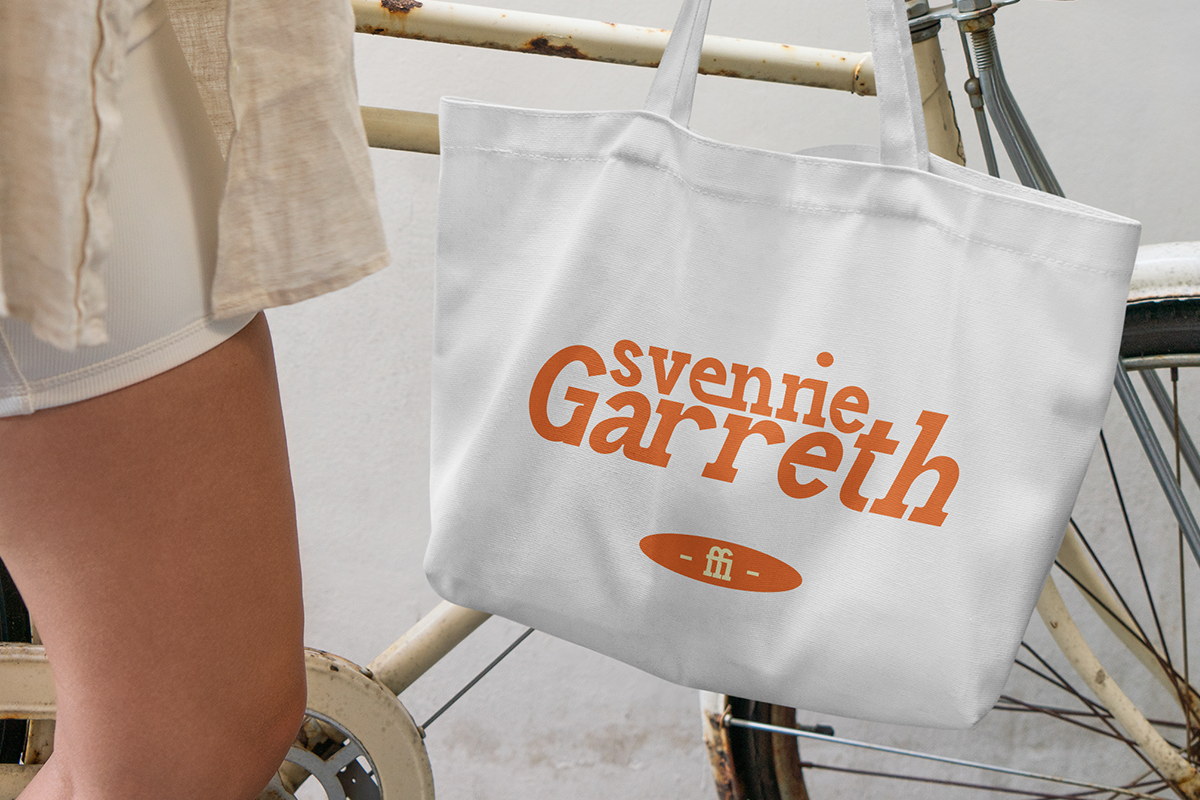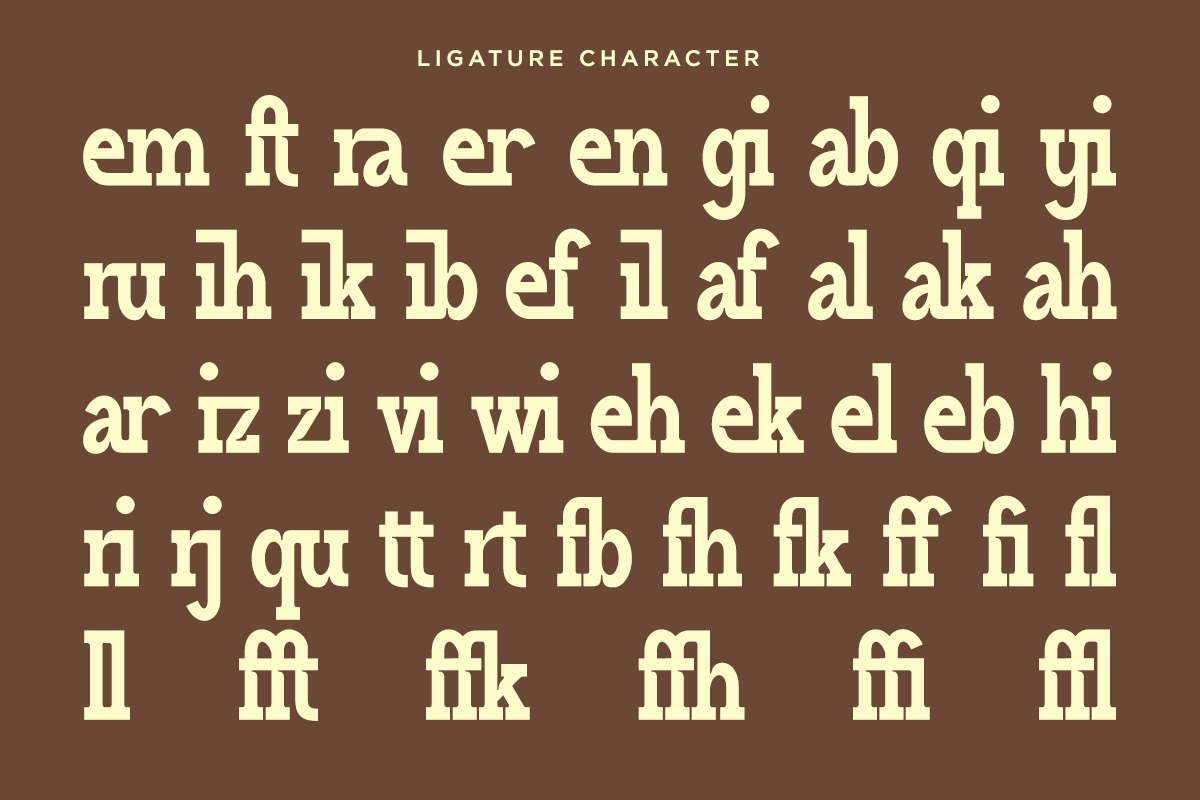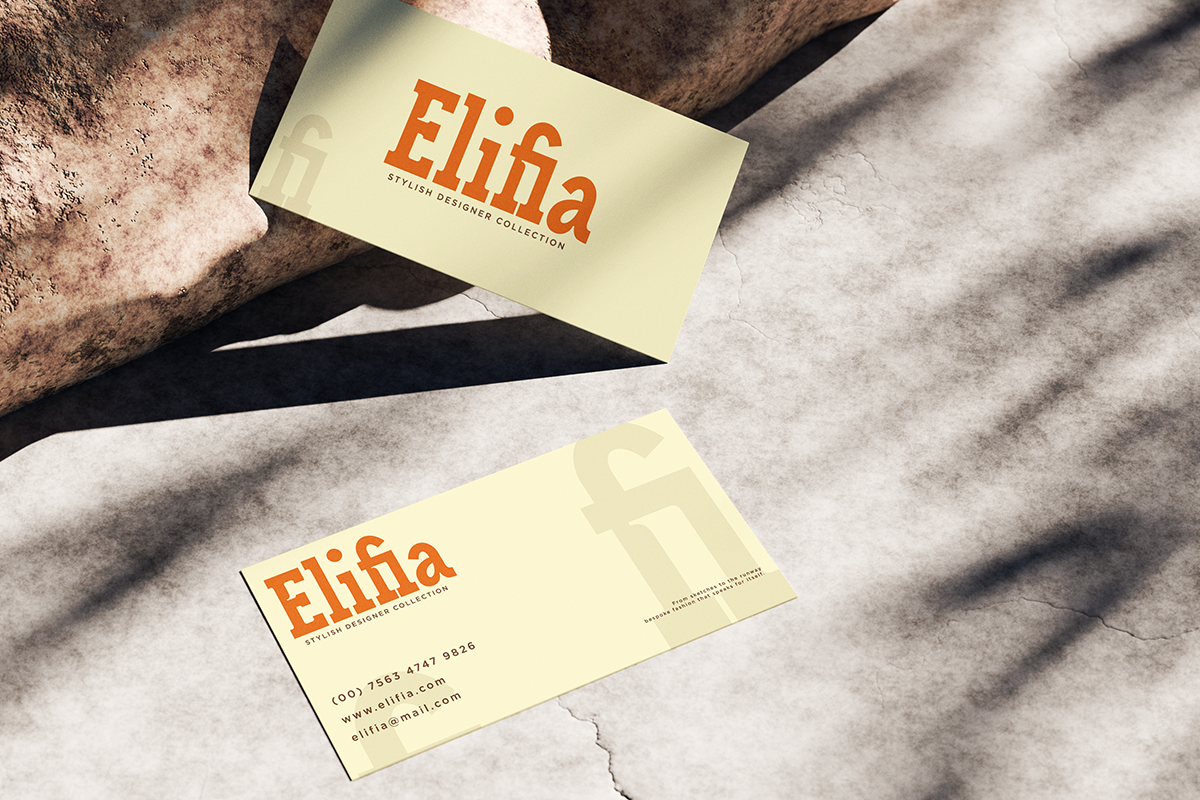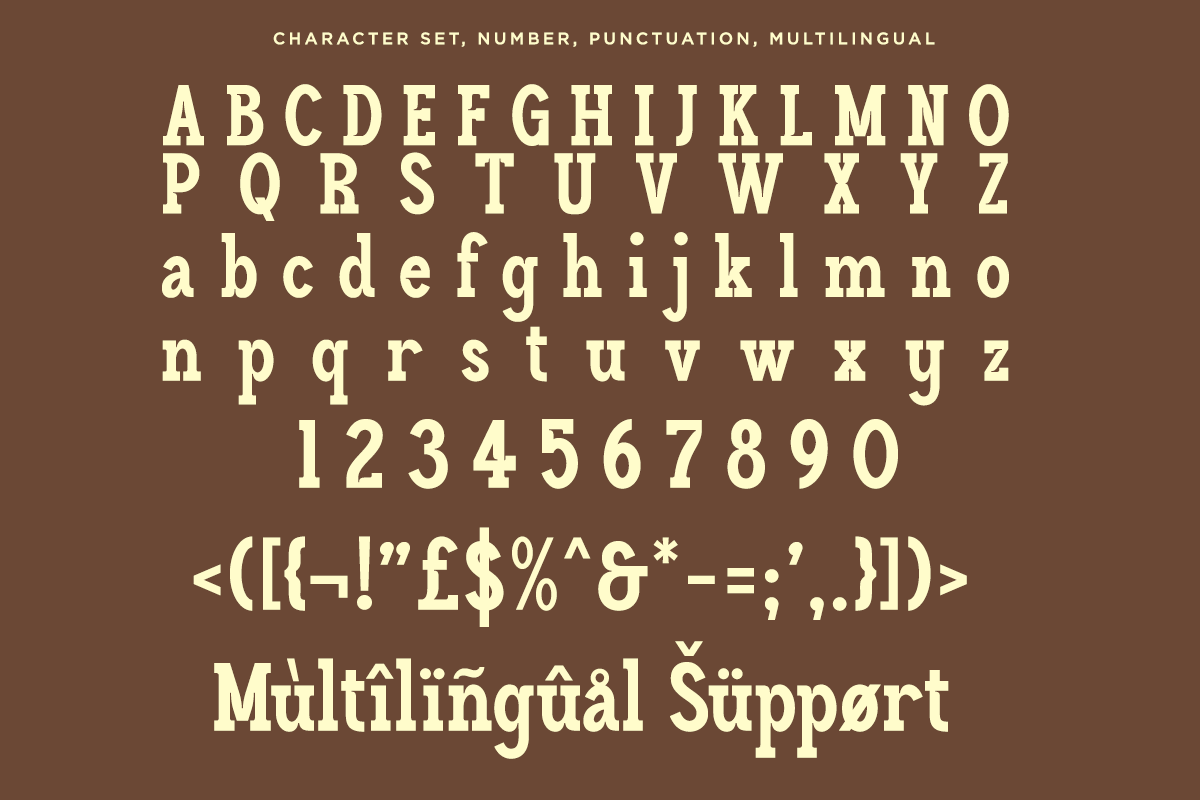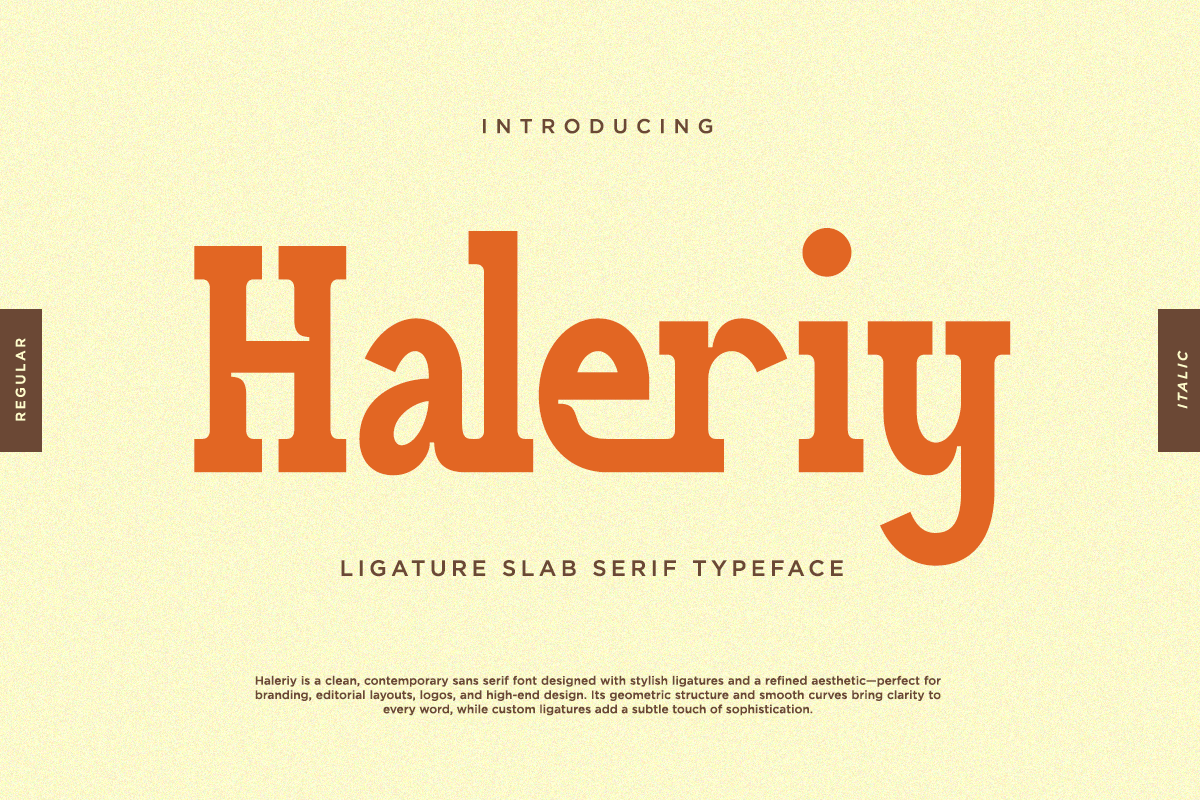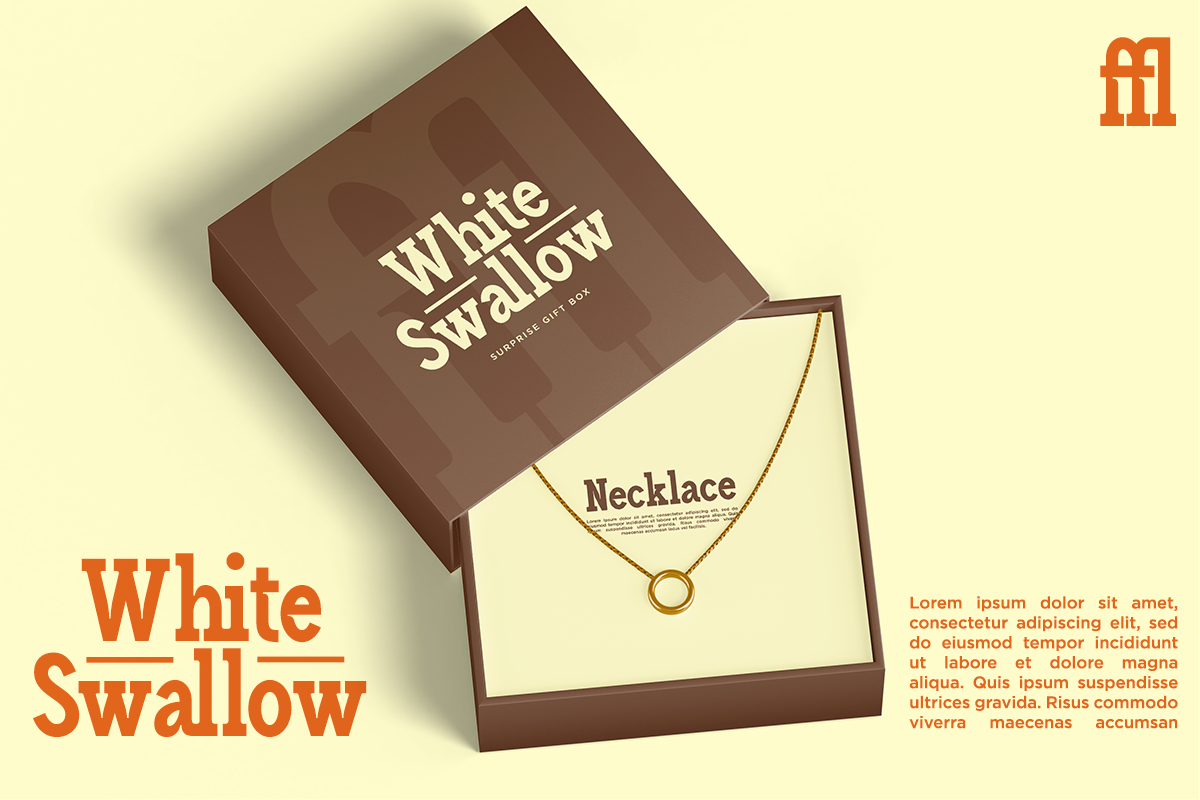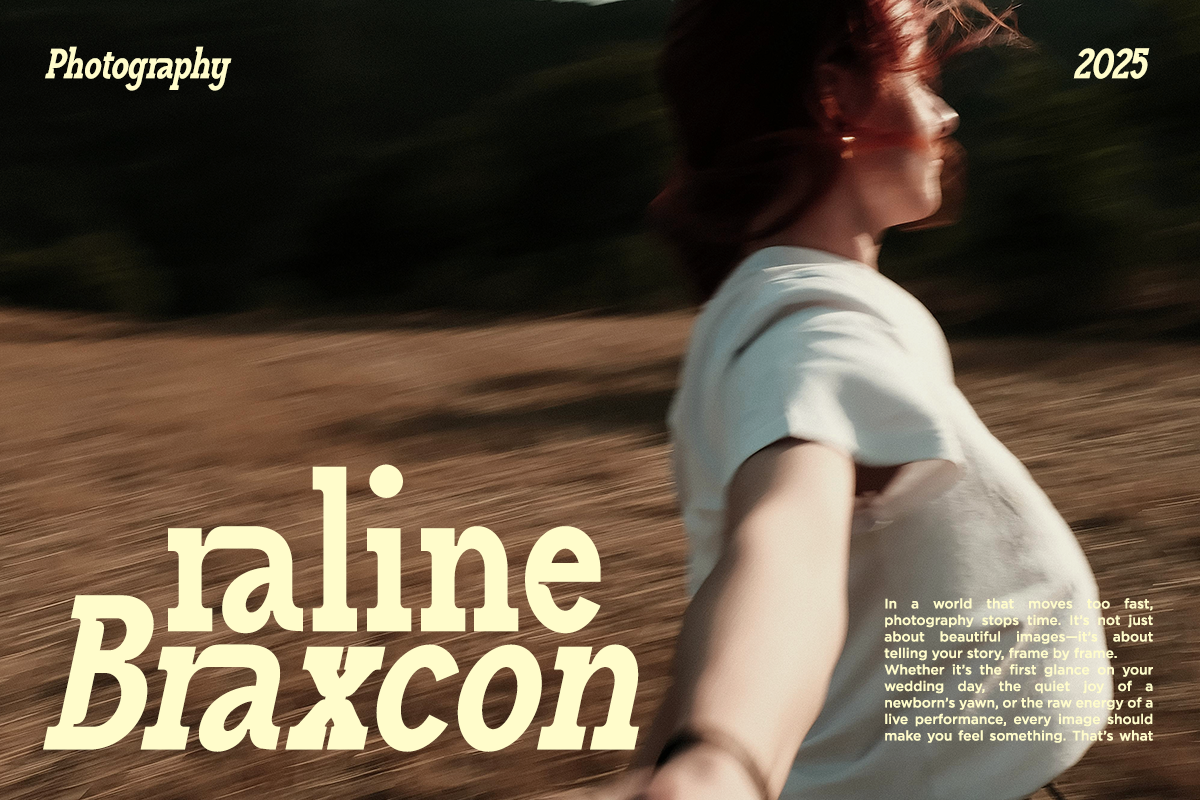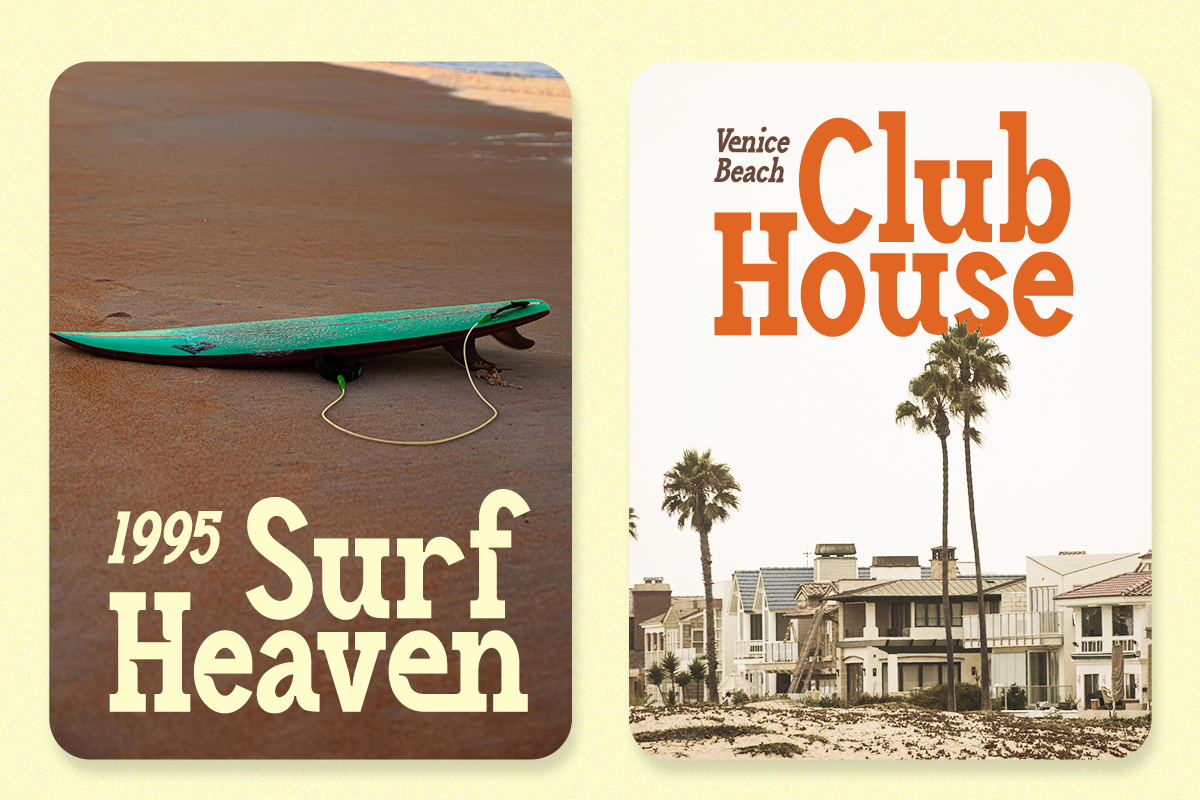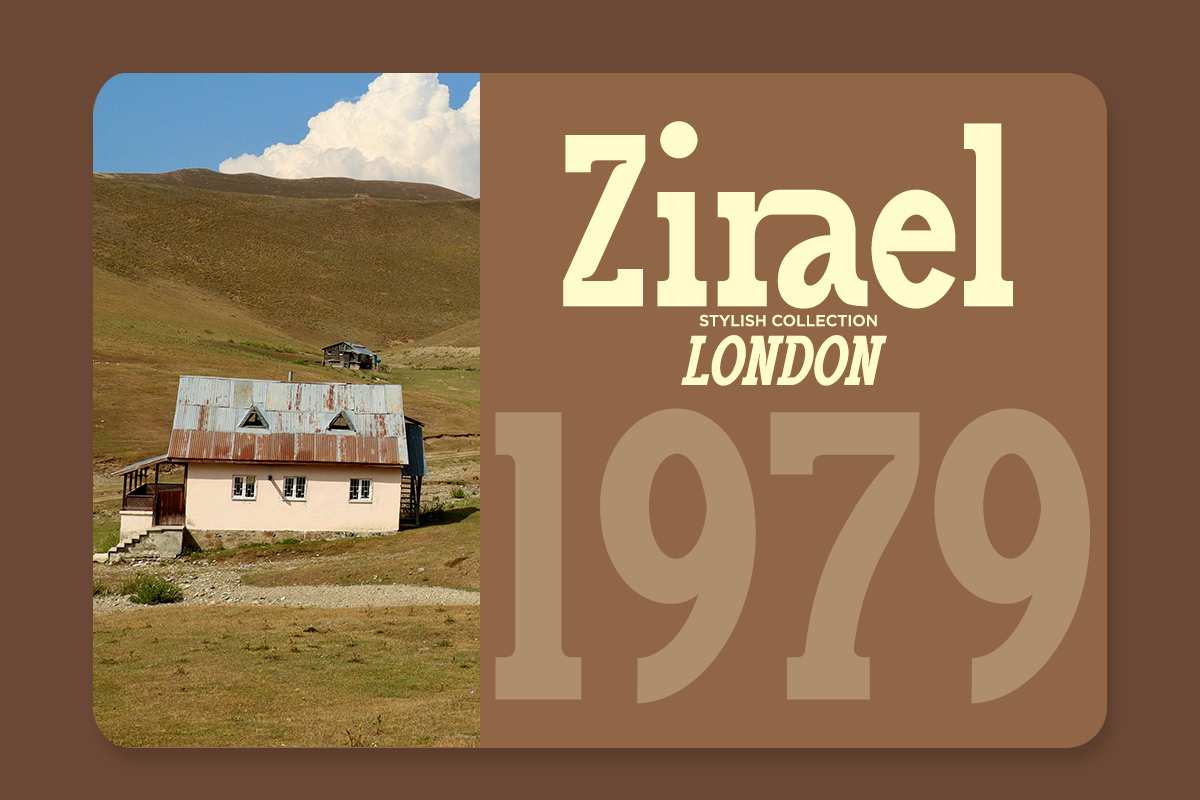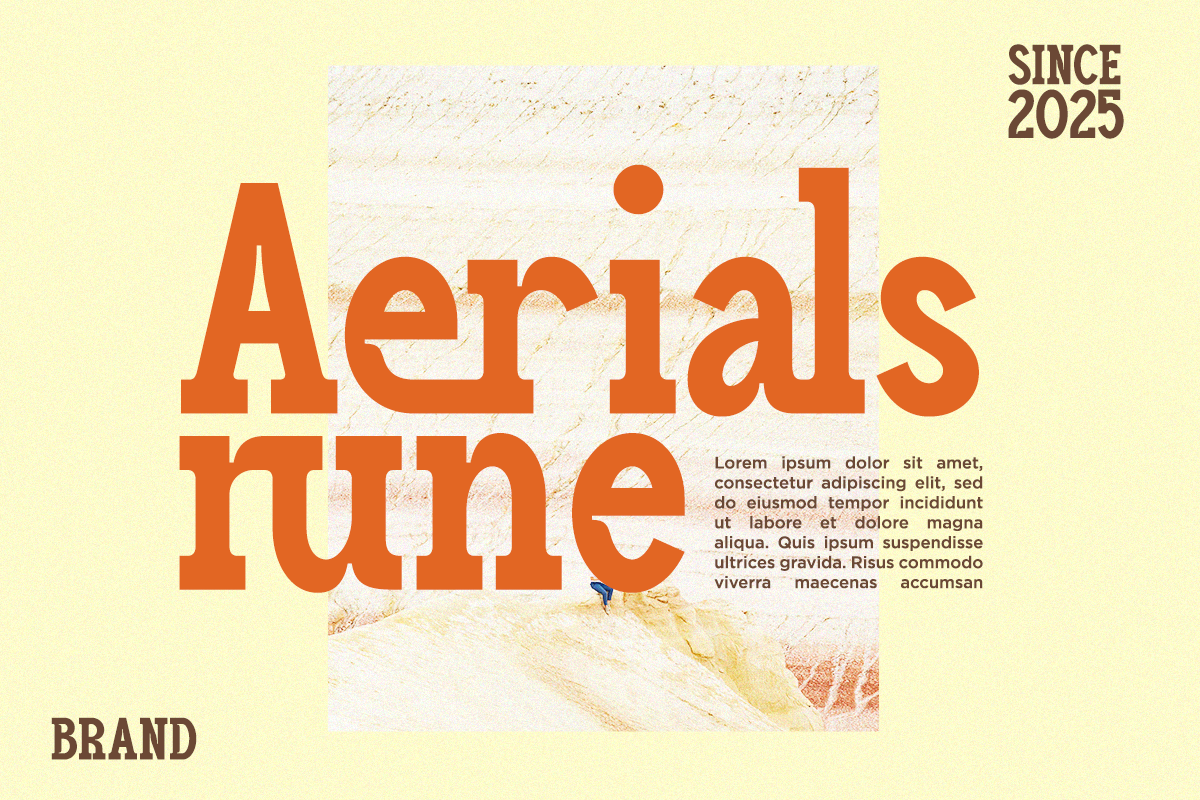
Haleriy - Ligature Slab Serif Font
Haleriy is a stylish slab serif font that blends vintage strength with inktrap style . Perfectly suited for headlines, branding, logos, packaging, and editorial layouts, it’s crafted to leave a lasting impression. With slab serifs, solid structure, and impactful letterforms, and inktrap style complementing its versatility, the typeface offers ligatures character stylistic sets, further expanding its expressive potential for any design project.